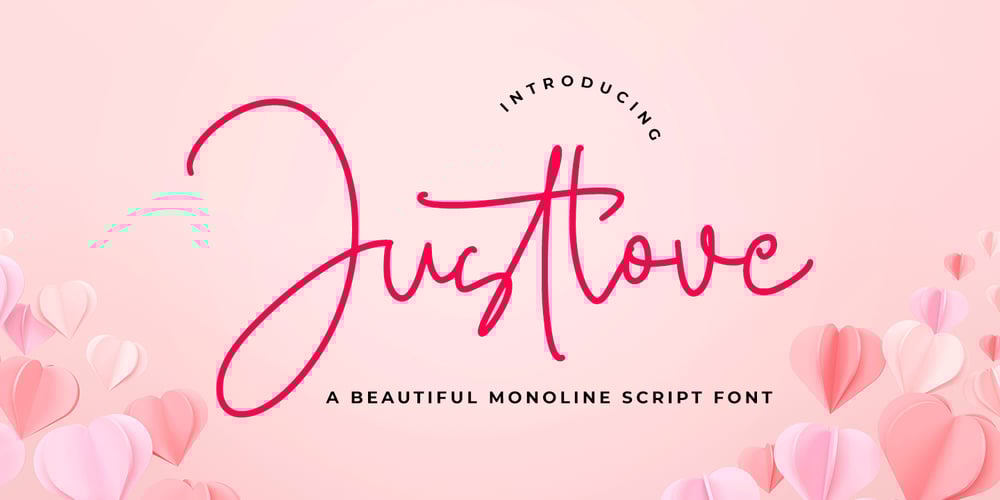
Justlove Font Family was designed by Hayinah and published by Rockboys Studio. Justlove contains 1 styles and family package options. Justlove is a sweet monoline font. Add it to your logos, labels, branding, invitations, websites, quotes, and more, and it will boost your designs and make them a true standout!